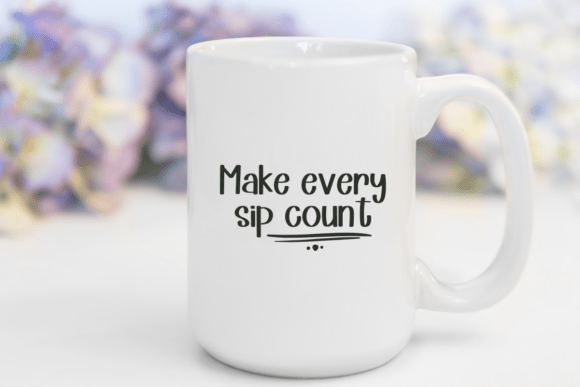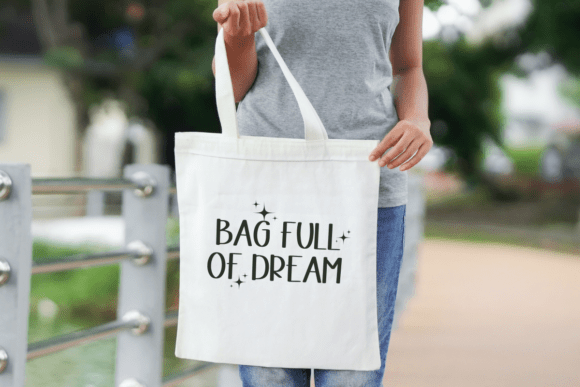
Introduction to Lucky Grinch Font
Have you ever been in the midst of a creative project, staring at a blank canvas or page, and suddenly, the perfect font pops into your mind? For many designers, this is a magical moment that sets the tone for the rest of the project. For crafters and makers, it’s the difference between a good project and a great one. Enter the Lucky Grinch Font, a fun and playful handwritten font that’s about to become your new best friend.
With its cute and friendly style, the Lucky Grinch Font is perfect for a variety of creative projects, from crafts and planners to Kindle Direct Publishing (KDP) and stickers. Its high-quality design makes it a valuable resource for designers and makers who want to add a personal touch to their work. And the best part? It’s available for free download, complete with a transparent background, making it easy to use in your favorite design software.
Key Features of Lucky Grinch Font
- Unique, high-quality design: The Lucky Grinch Font is a creative project that offers a unique and eye-catching design perfect for any design resource.
Honest Review: Lucky Grinch Font
As a designer, I’m always on the lookout for high-quality design resources to elevate my creative projects. The Lucky Grinch Font caught my eye with its unique, whimsical style. Here’s my honest review.
- Unique and quirky design style that’s perfect for adding a touch of whimsy to any project
- Limited character set, which may make it less suitable for long-form text or complex projects
- No bold or italic font weights, which may limit its use in certain design scenarios
Overall, I think the Lucky Grinch Font is a great addition to any designer’s toolkit, especially for creative projects that require a touch of personality. While it may have some limitations, its unique style and high-quality design make it a valuable resource. I’d definitely recommend it for free download and use in your next design project!
Use the Lucky Grinch Font to add a unique touch to your creative project. Experiment with different font sizes, colors, and arrangements to achieve the desired effect.
The Lucky Grinch Font is ideal for designing festive holiday cards, creating playful social media graphics, or adding a touch of whimsy to your branding materials.